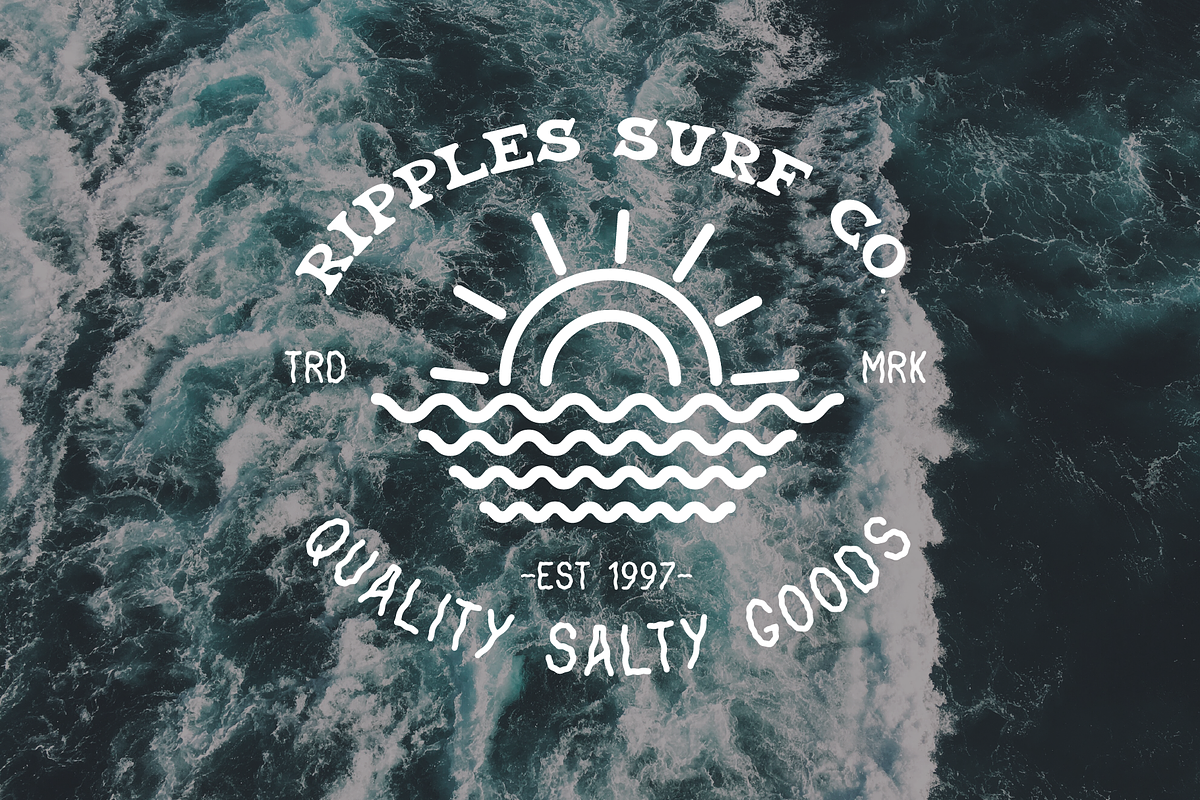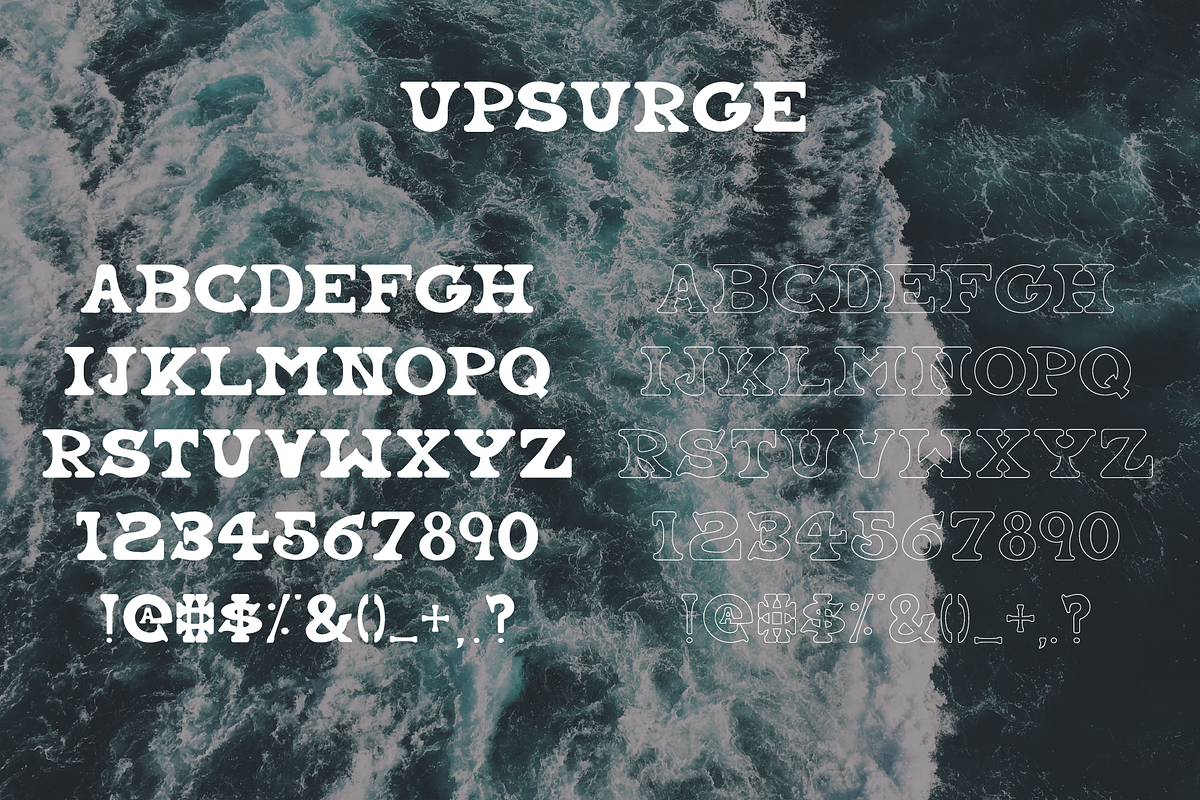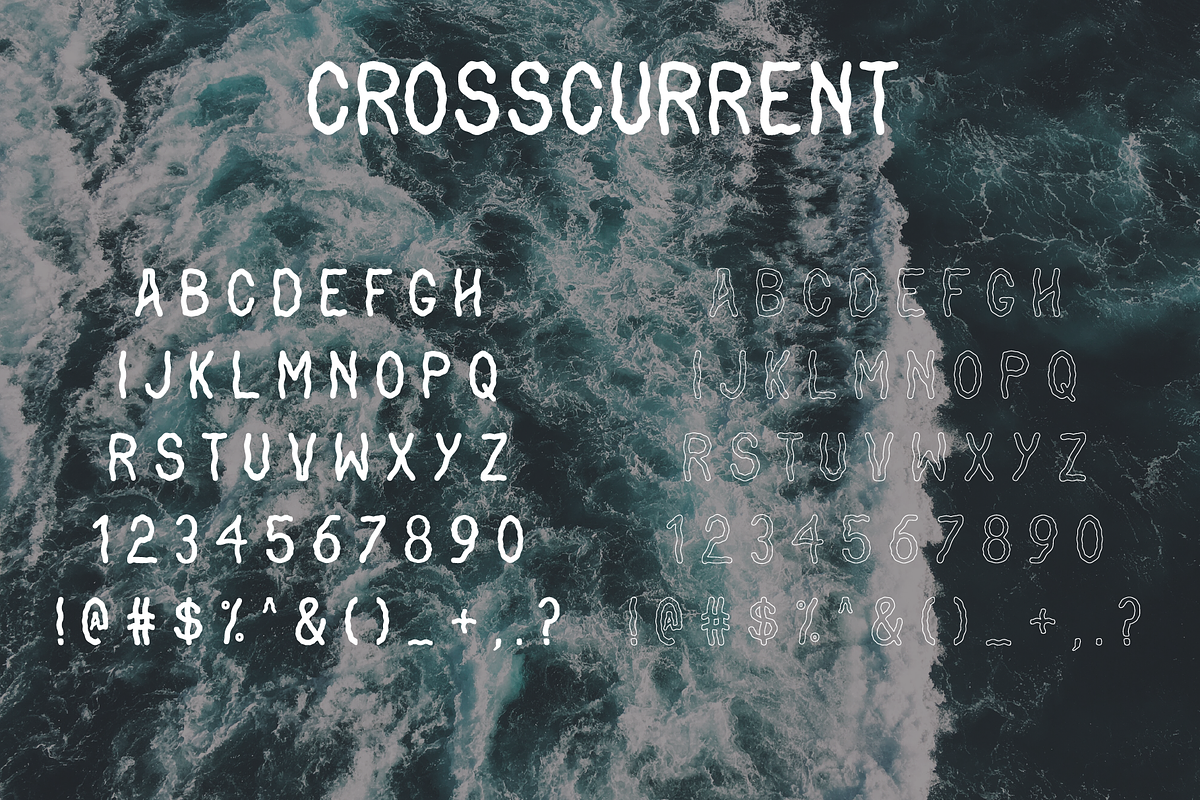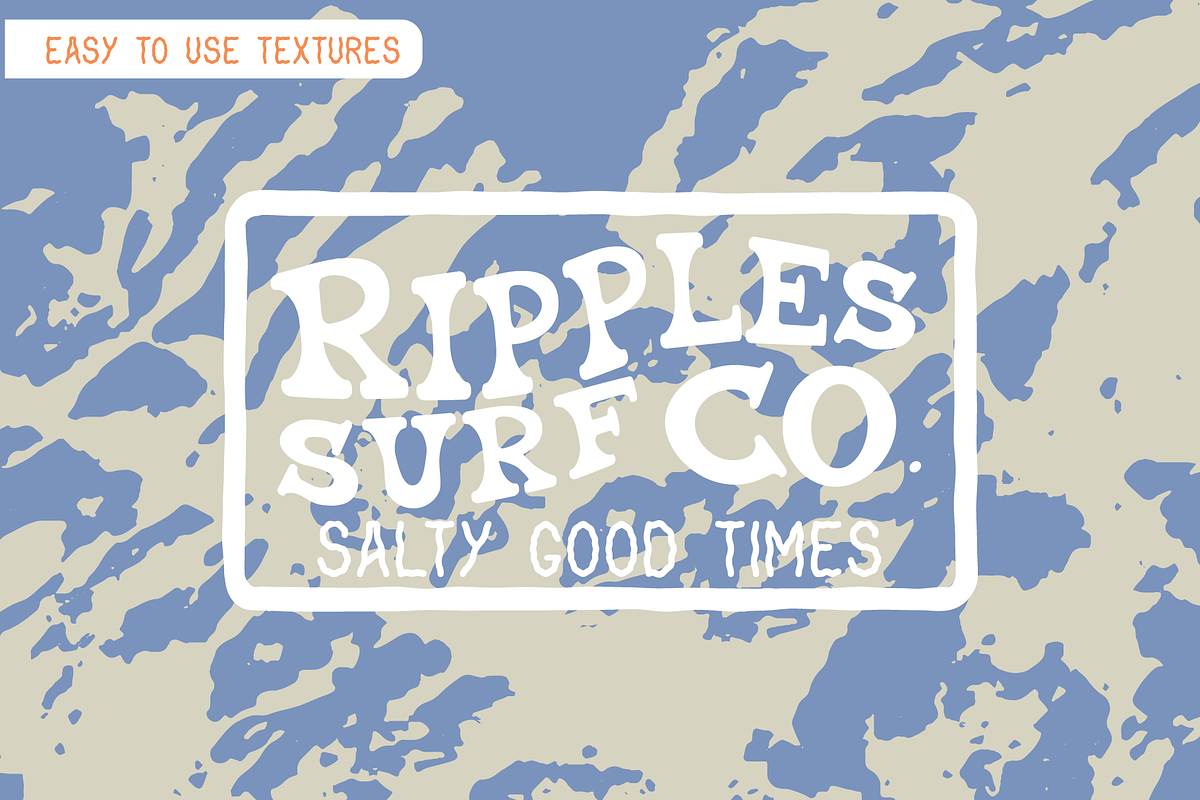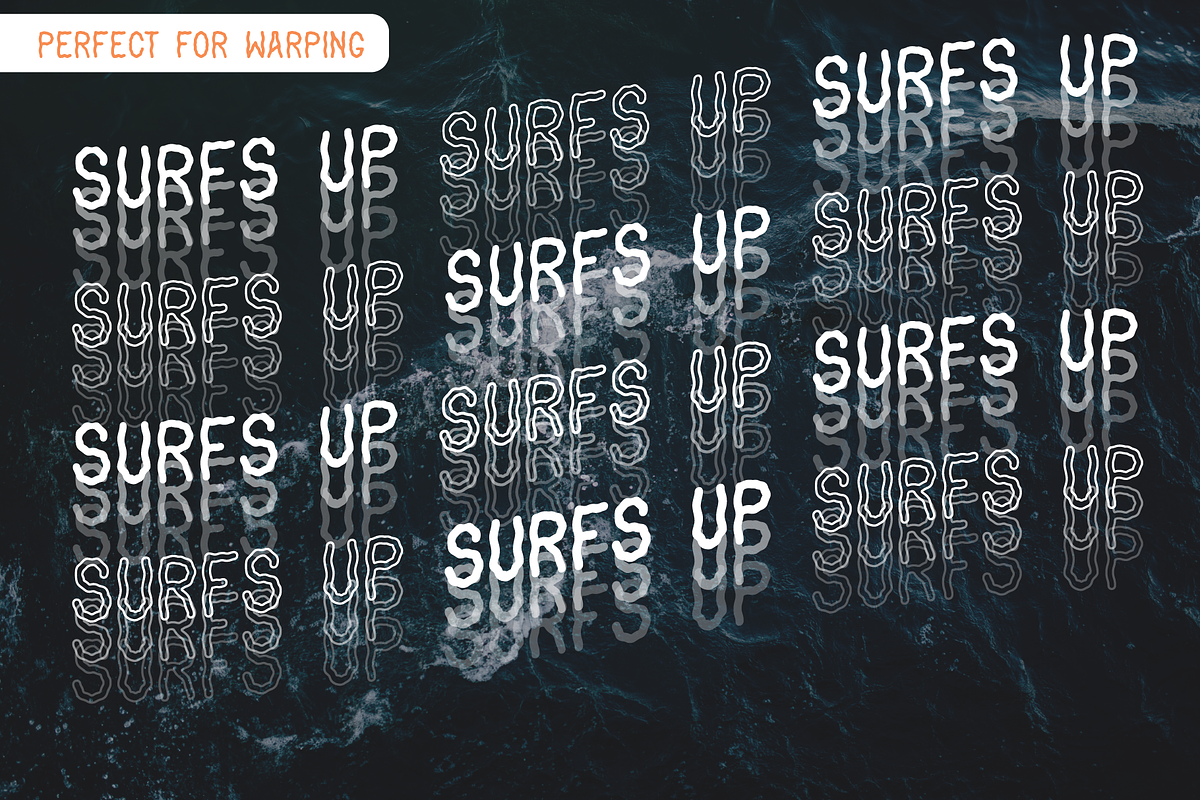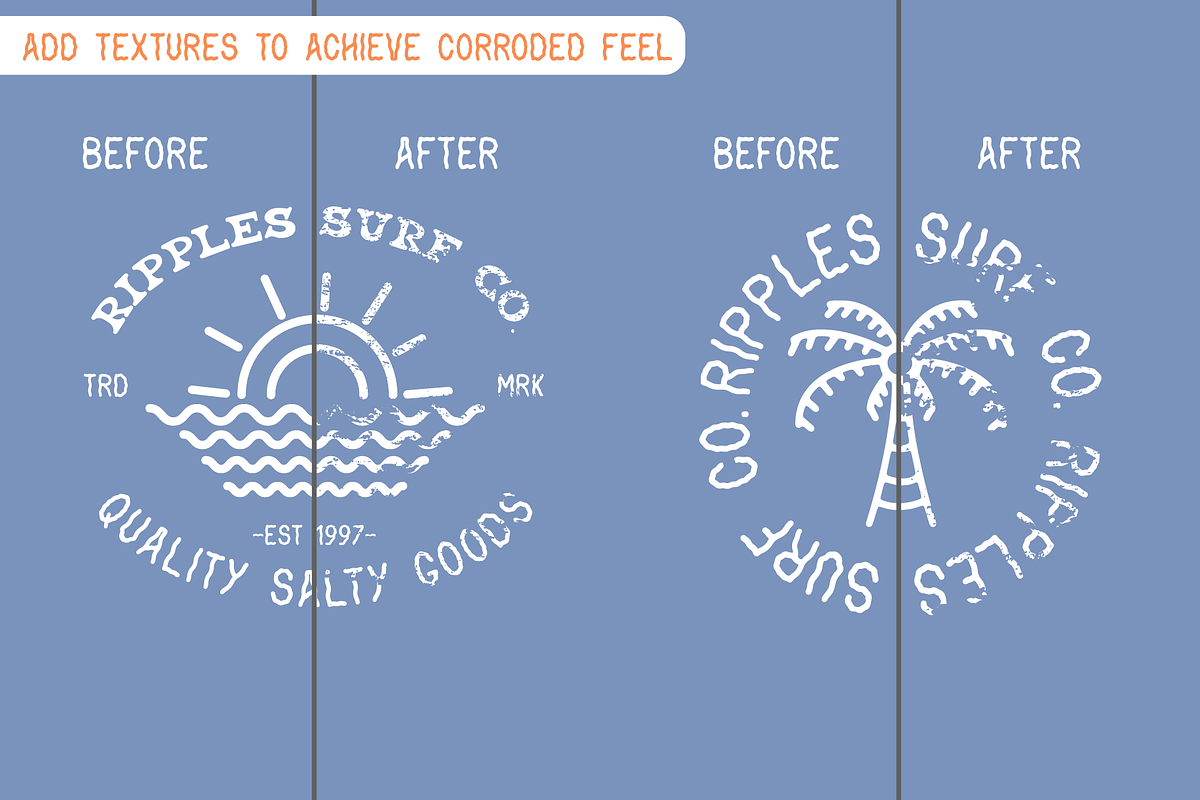
Coastal Fever - Font pack + Textures
Coastal Fever Font Package
Dreaming of a coastal holiday? Inspired by ocean currents and sunny beach adventures, this Coastal Fever pack is perfect for all your design needs. Each font has been carefully developed for versatility and easy use, to allow you to create your own unique designs. With options to add textures, warp or re-shape both fonts or pair them in any formation, this pack is perfect for apparel design, coastal branding or advertising.
Upsurge - Serif font (Regular & outline versions)
Crosscurrent - San Serif font (Regular & outline versions)
This pack also includes 12 easy-to-use textures developed from photo's of the ocean, beach and sand, that can be used to give your designs that extra coastal vibe or give it a more distressed feel.